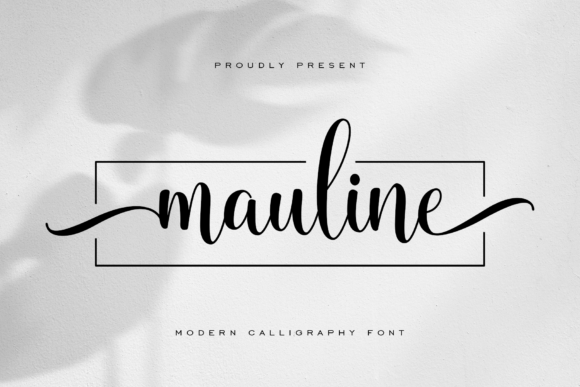
Unleash the elegance of handwritten artistry with Mauline Font, a script font family designed to captivate and inspire. Step into a world of creative expression as you explore the endless possibilities that await you with Mauline.
Immerse yourself in the beauty of Mauline, meticulously crafted to embody grace and luxury. Each letter dances across the page with a modern flair and artistic charm, leaving a trail of sophistication in its wake. Let your creative vision soar as you witness the transformation of your designs with Mauline's enchanting allure.
Journey through a myriad of creative projects, from heartfelt messages to striking T-shirt designs, and discover the boundless versatility of Mauline. Its effortless flow and captivating presence add an instant touch of elegance to any project, leaving a lasting impression that resonates with your audience.
Empower your creativity and let Mauline ignite the spark of inspiration within you. Experience the joy of seamless design as you effortlessly access all the glyphs and ligatures that Mauline has to offer, thanks to its PUA encoding. Unleash your imagination and explore the limitless potential that awaits.